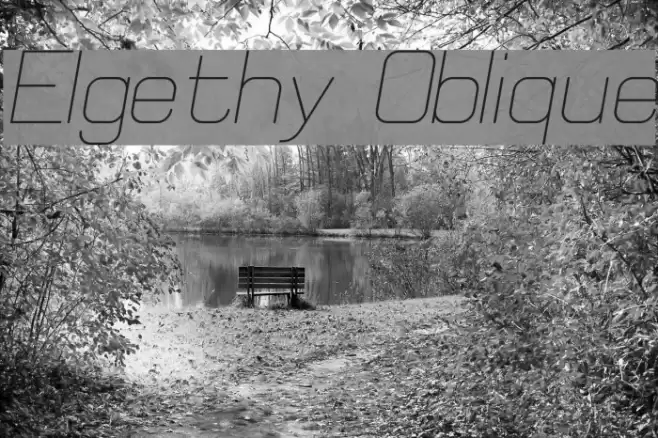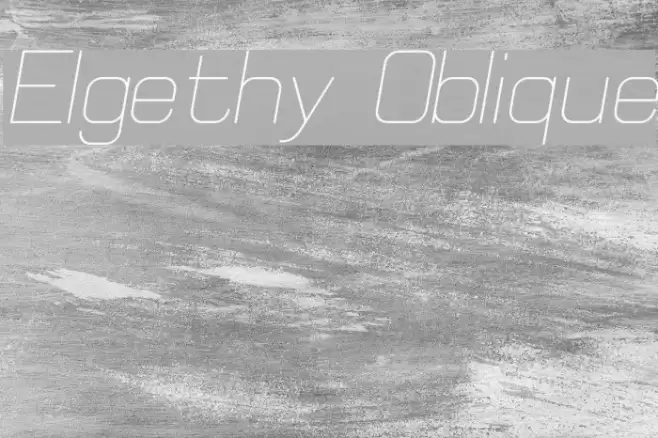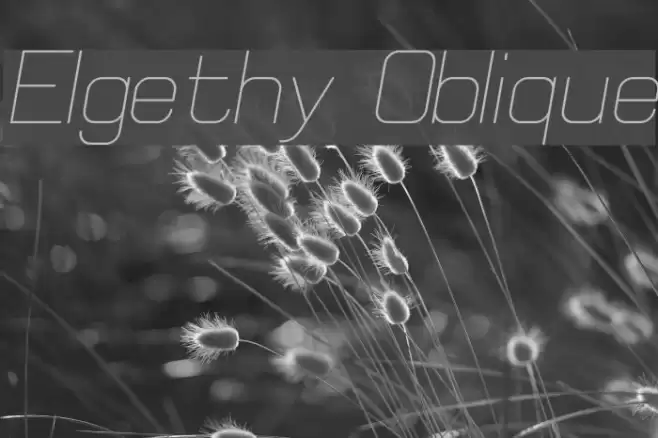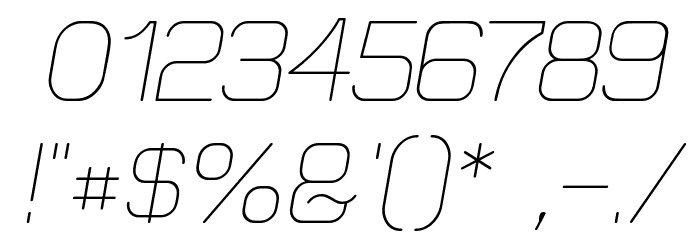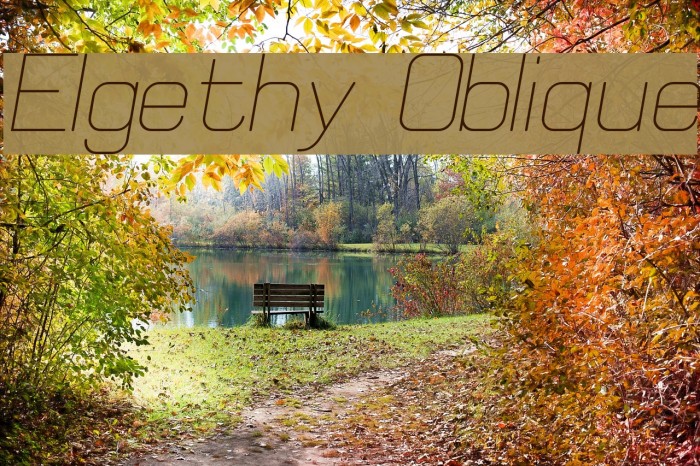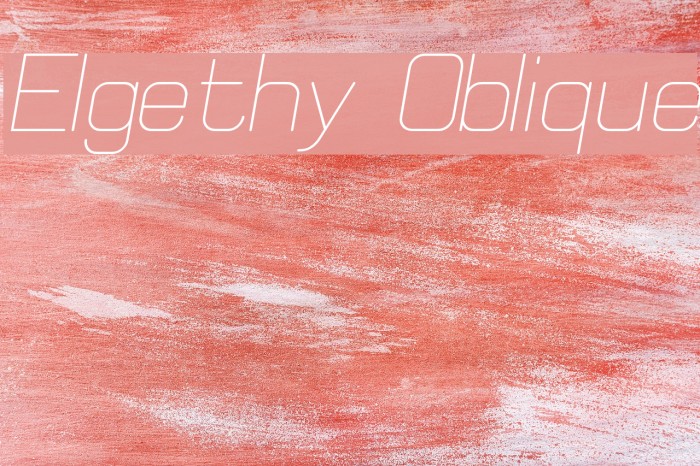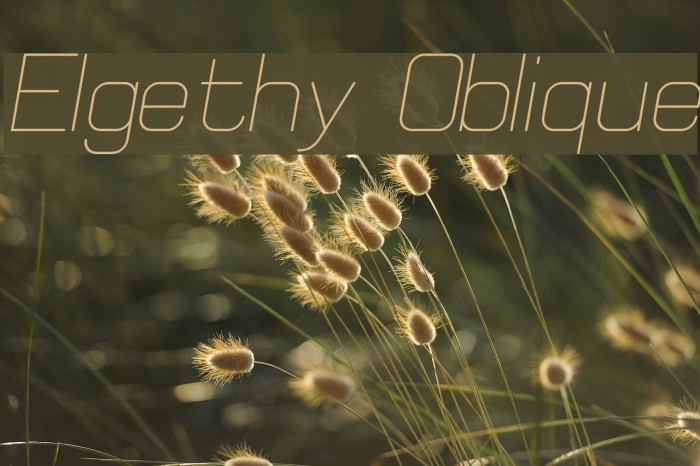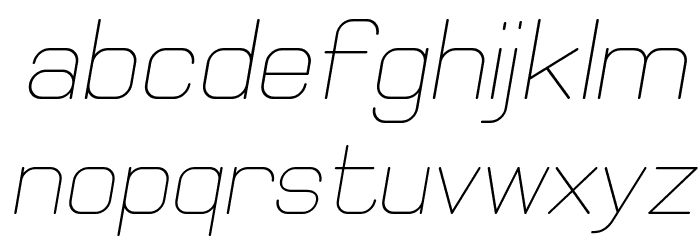
Elgethy Oblique
This font features a sleek, oblique style with a modern and minimalist aesthetic. The characters are slightly slanted, giving a sense of motion and dynamism. The lines are clean and consistent, with a uniform stroke width that maintains clarity and readability. The uppercase and lowercase letters are well-proportioned, and the numerals are distinct and easily distinguishable. The special characters are designed to complement the overall style, making it versatile for various applications. Its simplicity and elegance make it suitable for contemporary design projects.
A sleek, oblique font with a modern, minimalist aesthetic.
- Proposed Projects: Ideal for tech branding, modern advertising, sleek packaging, and digital interfaces.
- Use Case: Headlines, Logos, Digital interfaces